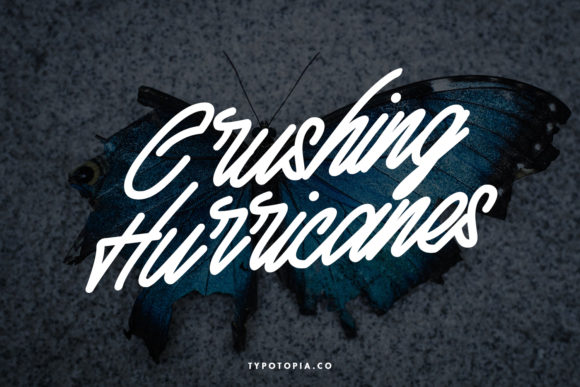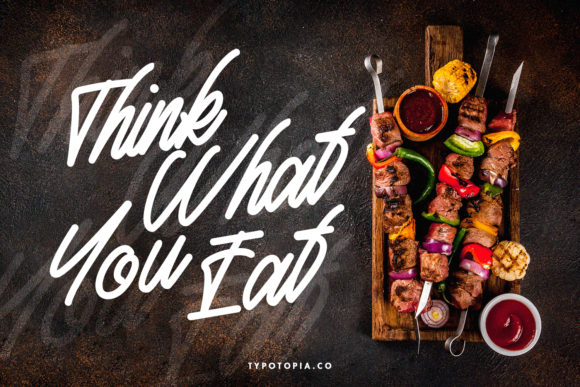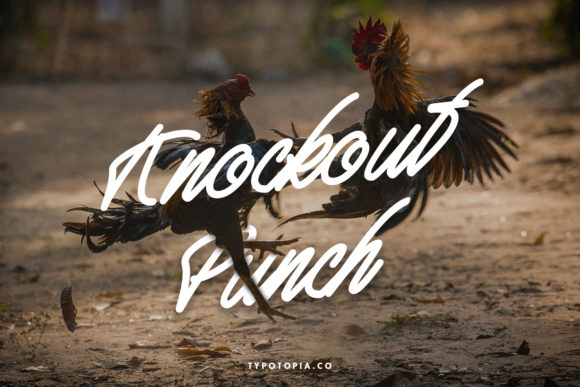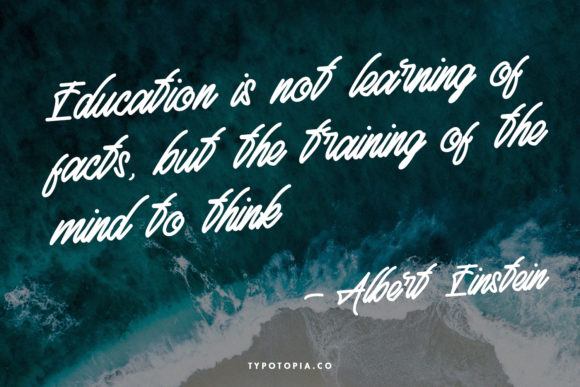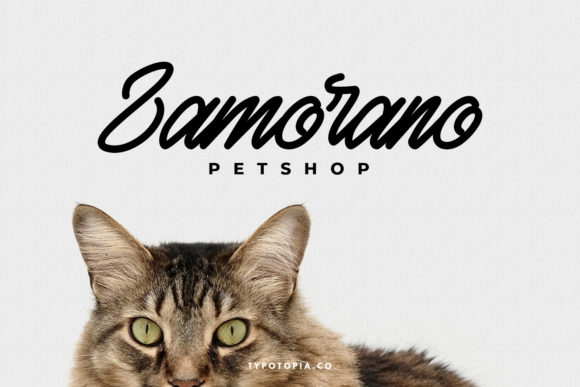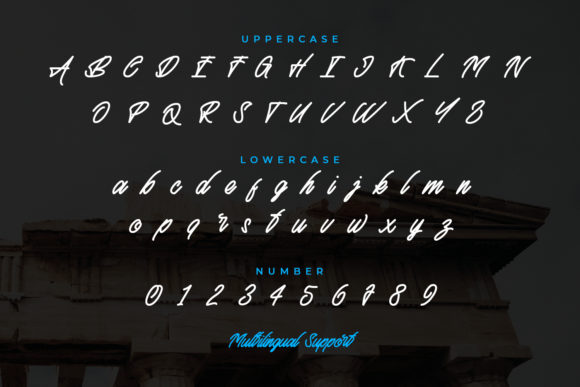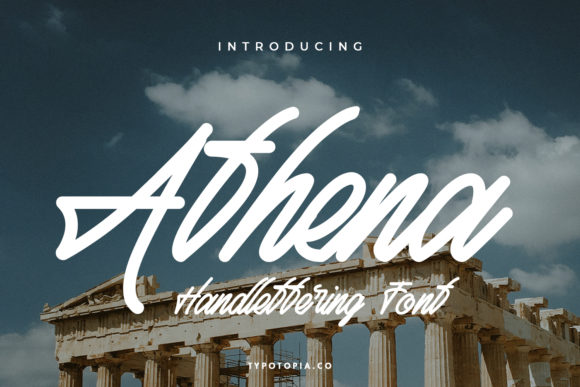
Athena Font: Elevate Your Designs with Elegance and Timeless Style
Athena Font is a beautiful, flowing handwritten font that has captured the hearts of designers and crafters alike. With its elegant touch and incredibly distinct style, Athena is the perfect addition to your favorite projects. In this article, we’ll dive into the world of Athena Font, exploring its unique features, uses, and benefits, and why it’s a must-have for anyone looking to create spectacular designs.
The Elegance of Athena Font
Athena Font is characterized by its elegant and flowing script, which exudes a sense of sophistication and refinement. The font’s unique design features beautiful swashes and flourishes, making it perfect for creating eye-catching headlines, titles, and quotes. Whether you’re working on a branding project, a wedding invitation, or a social media graphic, Athena Font is sure to add a touch of elegance and glamour.
Distinct and Timeless Style
One of the standout features of Athena Font is its incredibly distinct and timeless style. Unlike other fonts that may come and go, Athena’s classic design ensures that it will remain relevant for years to come. Its unique blend of modern and traditional elements makes it versatile and adaptable, allowing you to use it in a wide range of design projects. Whether you’re creating a modern logo or a vintage-inspired poster, Athena Font is the perfect choice.
Athena Font is a dream come true for designers and crafters who want to add a personal touch to their projects. With its beautiful, hand-drawn design, Athena Font is perfect for creating unique and eye-catching designs that stand out from the crowd. Whether you’re a professional designer or a DIY crafter, Athena Font is a must-have in your font collection.
Use Cases for Athena Font
Athena Font is incredibly versatile and can be used in a wide range of design projects, including:
- Branding and Logo Design: Use Athena Font to create a unique and memorable logo that reflects your brand’s personality and values.
- Wedding and Event Invitations: Add a touch of elegance and sophistication to your wedding or event invitations with Athena Font.
- Social Media Graphics: Use Athena Font to create eye-catching social media graphics that grab attention and drive engagement.
- Print and Digital Publications: Athena Font is perfect for use in print and digital publications, such as magazines, brochures, and e-books.
Benefits of Using Athena Font
So why choose Athena Font for your design projects? Here are just a few benefits of using this beautiful font:
- Elegance and Sophistication: Athena Font adds a touch of elegance and sophistication to any design project.
- Versatility: Athena Font can be used in a wide range of design projects, from branding and logo design to social media graphics and print publications.
- Unique and Memorable: Athena Font’s unique design ensures that your designs will stand out from the crowd and be remembered.
In conclusion, Athena Font is a beautiful, flowing handwritten font that is perfect for designers and crafters who want to add a touch of elegance and sophistication to their projects. With its incredibly distinct and timeless style, Athena Font is a must-have in any font collection. Whether you’re working on a branding project, a wedding invitation, or a social media graphic, Athena Font is sure to elevate your designs and help you create spectacular results.